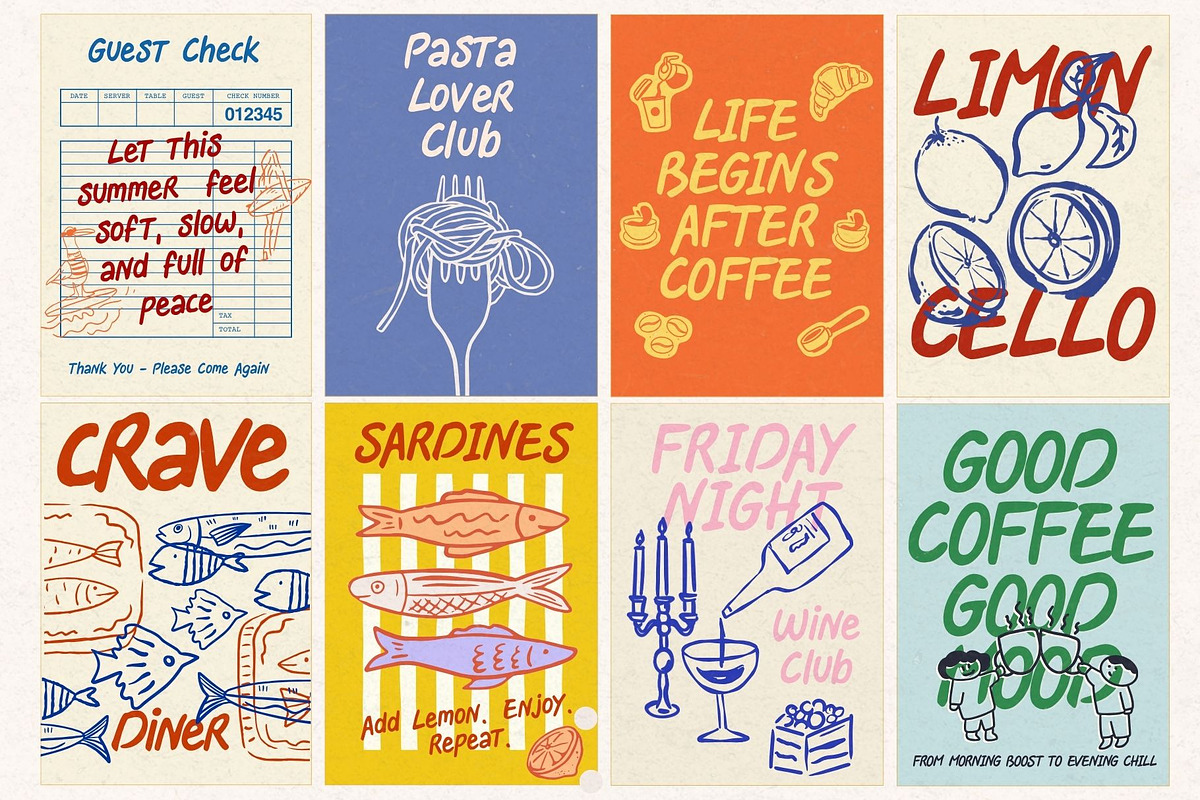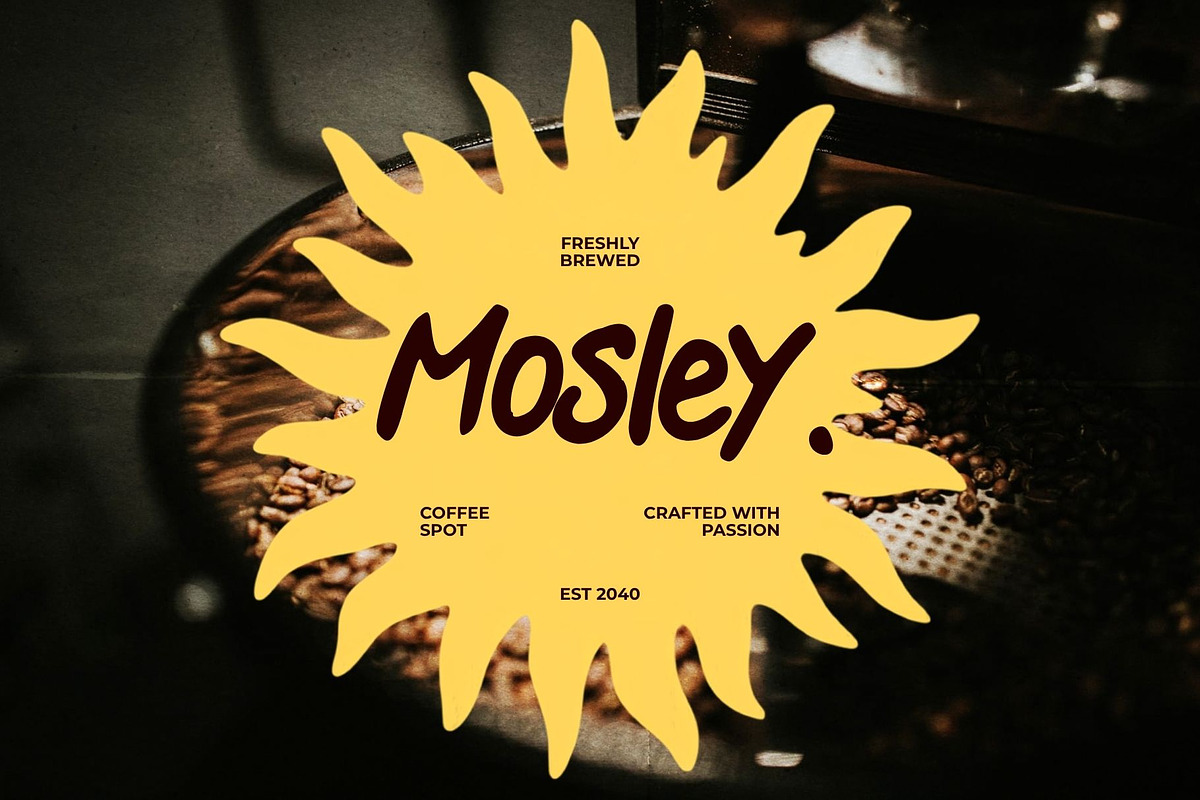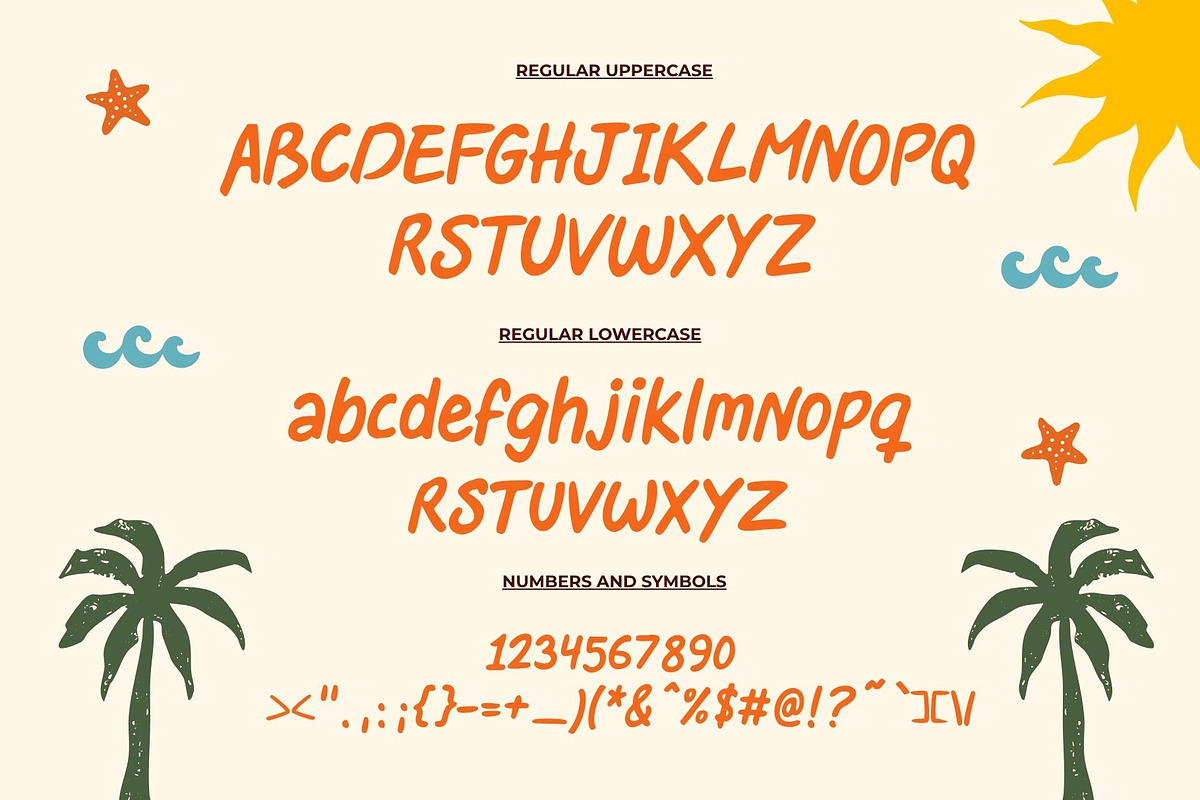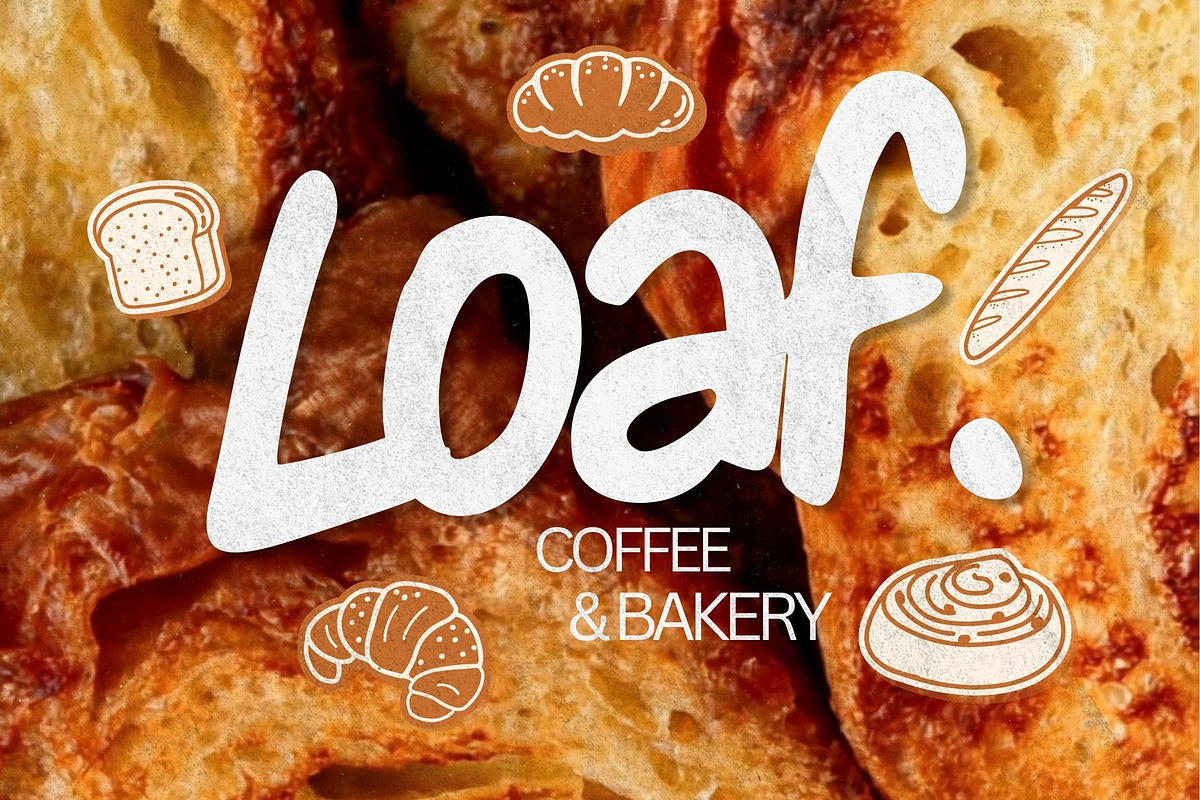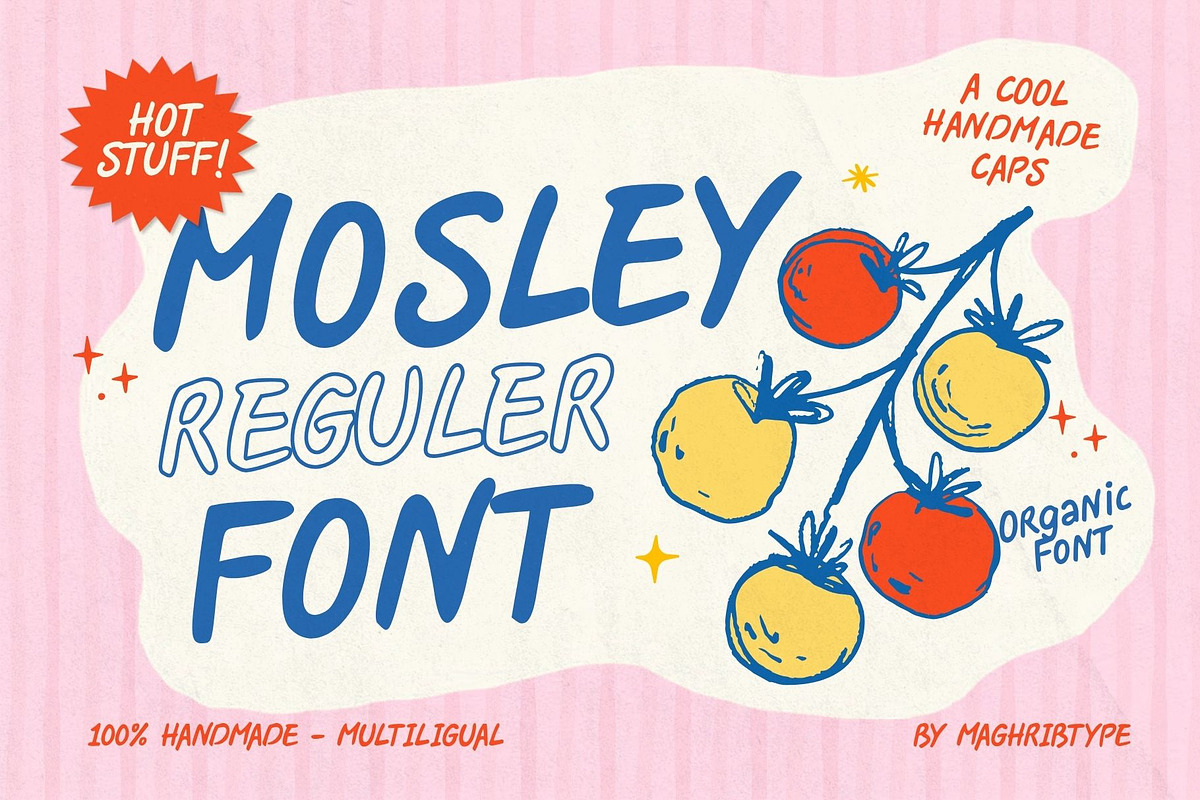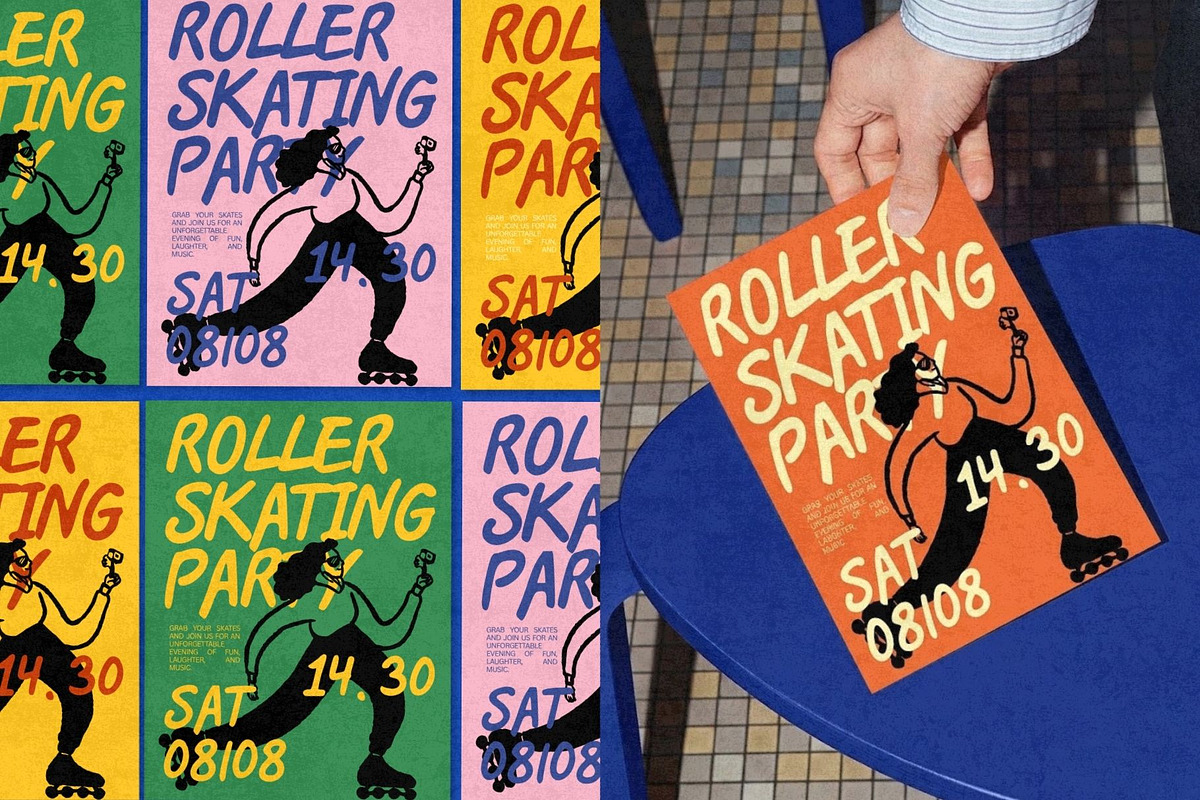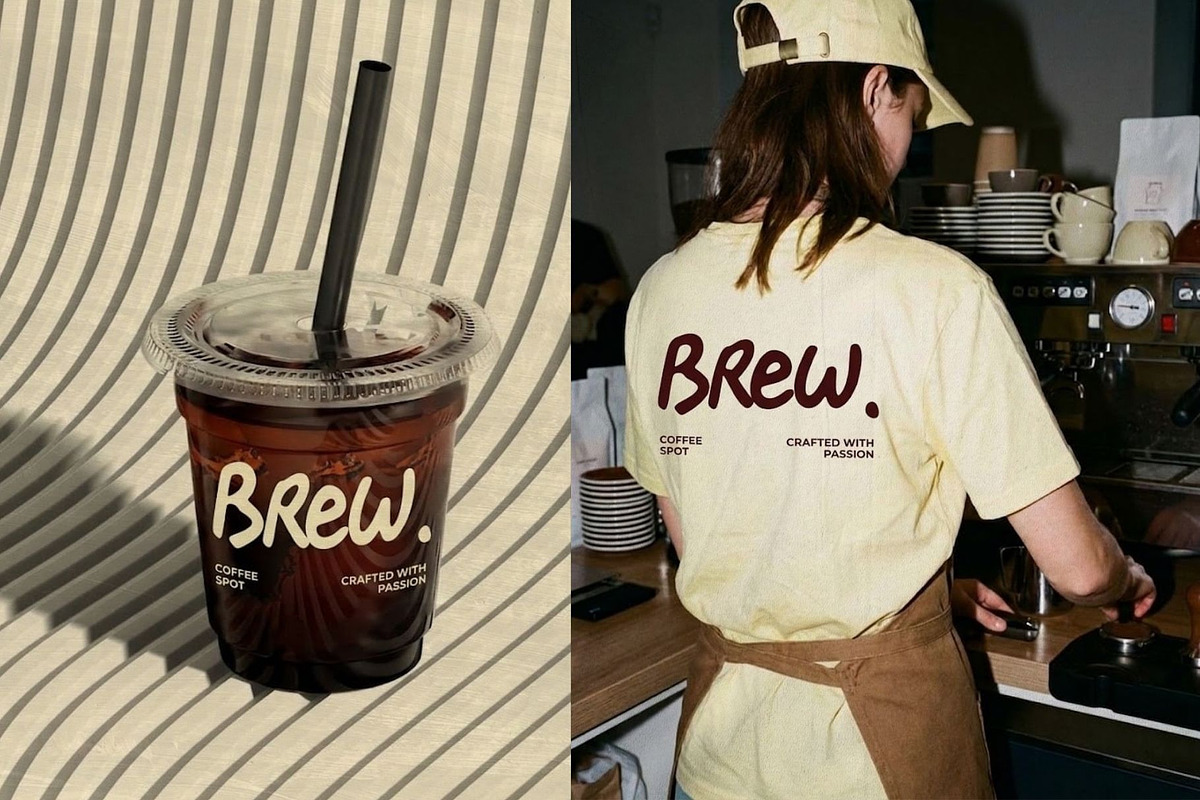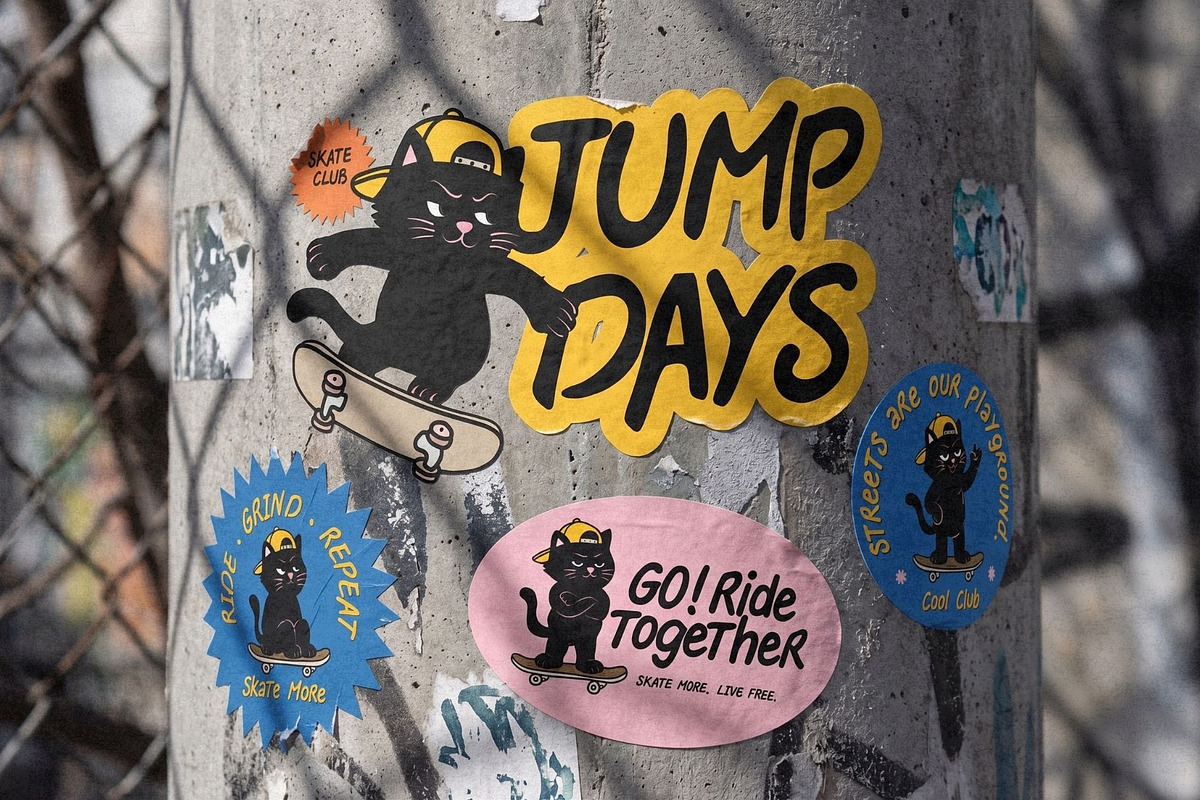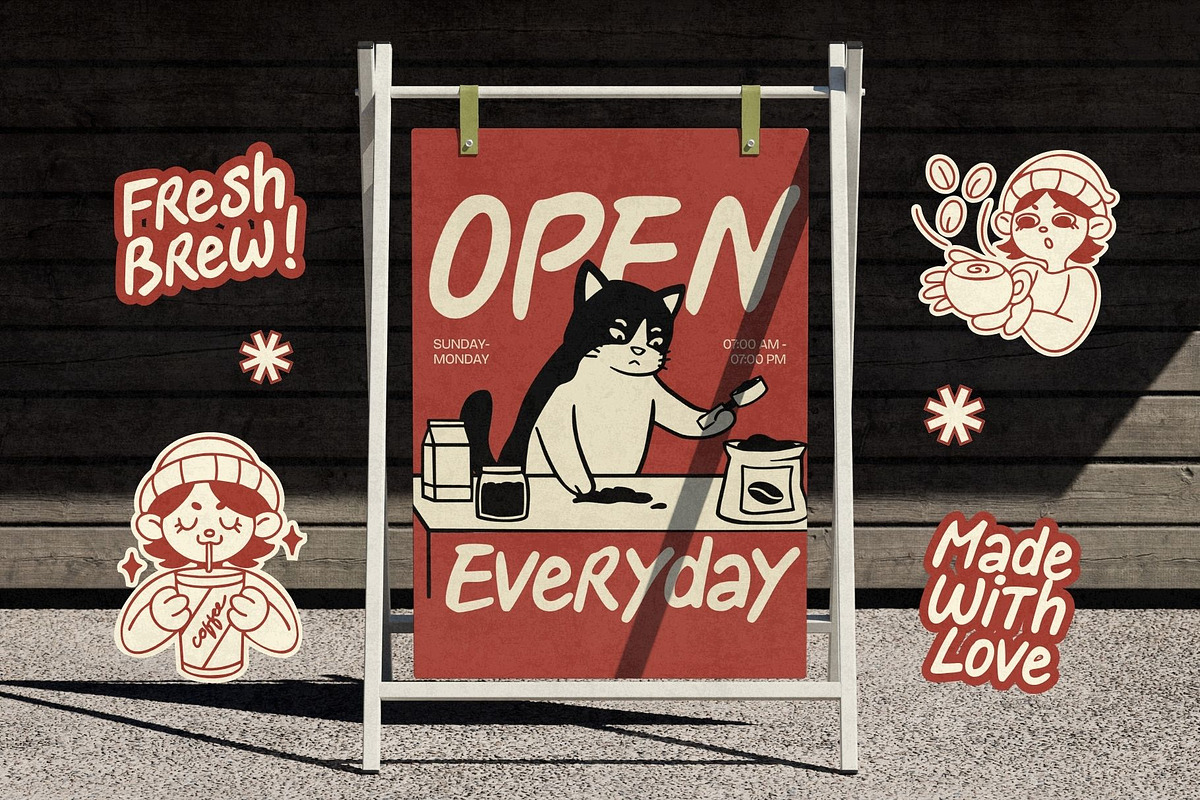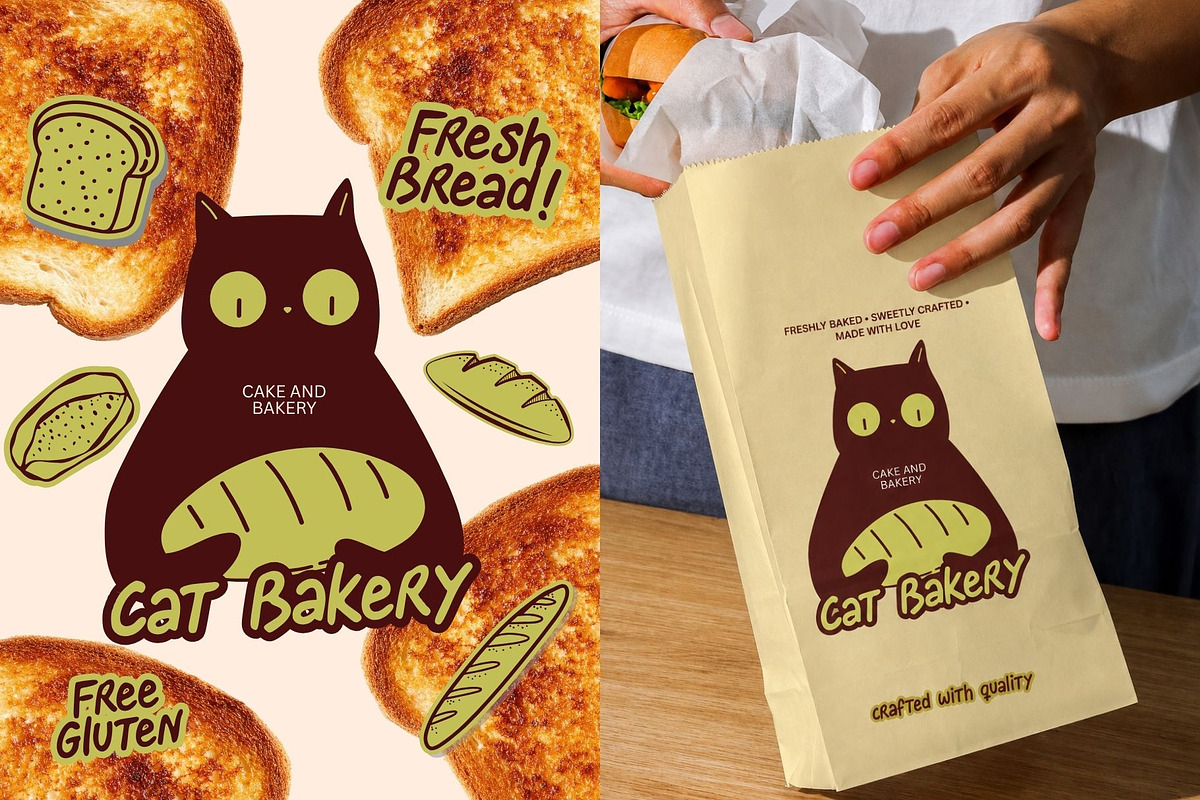
Mosley Handdrawn
Mosley – Handdrawn Organic Display Font
Mosley is a bold and playful handdrawn display font with an organic, imperfect character. Inspired by expressive hand lettering, Mosley combines chunky strokes, natural curves, and a slightly retro feel to bring warmth and personality to every word.
Designed to look like real handmade lettering, Mosley has a casual and energetic appearance that works beautifully for branding, posters, packaging, apparel, labels, signage, social media graphics, and creative advertising.
Its bold presence makes it especially effective for headlines and short statements, while the handdrawn details add a friendly and authentic touch to your designs.
Mosley includes:
Regular uppercase
Regular lowercase
Punctuation & symbols
Multilingual characters
Handdrawn & organic letterforms
Bold display style
Perfect for coffee shops, bakeries, restaurants, food packaging, lifestyle brands, streetwear, posters, stickers, editorial designs, event graphics, and social media artwork.
Give your next project a handmade personality with Mosley.